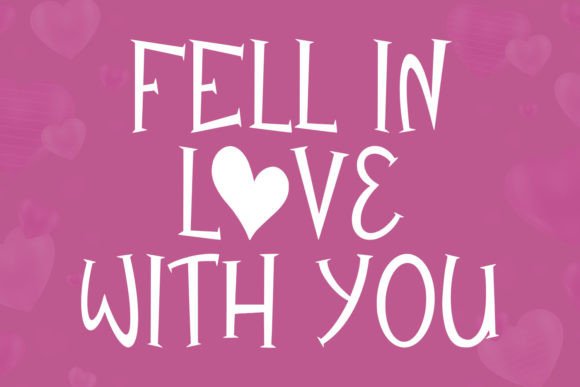
Introducing Julovey Font: The Ultimate Expression of Love and Elegance
In the world of typography, fonts play a crucial role in conveying emotions and setting the tone for various designs. Among the numerous fonts available, Julovey Font stands out as a stylish and romantic typeface that brings love to life in every letter. With its touch of sophistication, Julovey Serif Love Display Font adds a special flair to your designs, making it perfect for expressing emotions with elegance.
The Essence of Julovey Font
Julovey Serif Love Display Font is a beautifully crafted typeface that combines classic charm with a modern twist. Its elegant design makes it an ideal choice for projects that require a dash of romance, such as wedding invitations, love notes, and other designs that aim to evoke emotions. The font’s versatility allows it to be used in various contexts, from digital platforms to print materials.
Key Features of Julovey Font
- Romantic and Elegant Design: Julovey Serif Love Display Font boasts a sophisticated design that exudes love and elegance. Its intricate details and refined lines make it perfect for designs that require a touch of romance.
- Versatility: This font is versatile and can be used in various design projects, including wedding invitations, love notes, posters, and digital content.
- Classic Charm with a Modern Twist: Julovey Serif effortlessly combines classic charm with a modern twist, making it suitable for both traditional and contemporary designs.
- Easy to Read: Despite its elegant design, Julovey Serif Love Display Font remains easy to read, ensuring that your message is conveyed clearly and effectively.
Use Cases for Julovey Font
Julovey Serif Love Display Font is perfect for a wide range of design projects, including:
- Wedding Invitations: Add a touch of romance and elegance to your wedding invitations with Julovey Serif Love Display Font.
- Love Notes: Express your emotions with love notes that feature this beautiful and elegant font.
- Digital Content: Use Julovey Serif Love Display Font to create engaging and romantic digital content, such as social media posts and blog articles.
- Posters and Flyers: Create eye-catching posters and flyers that showcase your message in a stylish and elegant manner.
Tips for Using Julovey Font
To get the most out of Julovey Serif Love Display Font, consider the following tips:
- Pair with Complementary Fonts: Pair Julovey Serif Love Display Font with complementary fonts to create a harmonious and visually appealing design.
- Use in Moderation: Use Julovey Serif Love Display Font in moderation to avoid overwhelming your design. It’s perfect for headings and titles, but you may want to use a simpler font for body text.
- Experiment with Colors: Julovey Serif Love Display Font looks great in a variety of colors. Experiment with different colors to find the one that best suits your design.
The Benefits of Using Julovey Font
Using Julovey Serif Love Display Font offers several benefits, including:
- Unique and Memorable Designs: Julovey Serif Love Display Font helps you create unique and memorable designs that stand out from the crowd.
- Emotional Connection: This font helps you establish an emotional connection with your audience, making your design more relatable and engaging.
- Professionalism: Julovey Serif Love Display Font adds a touch of professionalism to your design, making it perfect for businesses and individuals who want to make a lasting impression.
Julovey Serif Love Display Font is a stylish and romantic typeface that brings love to life in every letter. With its touch of sophistication, it adds a special flair to your designs, making it perfect for expressing emotions with elegance. Whether you’re working on wedding invitations, love notes, or any project that needs a dash of romance, Julovey Serif effortlessly combines classic charm with a modern twist. Embrace the power of love in your typography with this beautiful and versatile display font.
FAQs About Julovey Font
- What is Julovey Serif Love Display Font?: Julovey Serif Love Display Font is a stylish and romantic typeface designed to bring love to life in every letter.
- What is Julovey Font used for?: Julovey Serif Love Display Font is perfect for wedding invitations, love notes, digital content, posters, and any design project that requires a touch of romance.
- Is Julovey Font easy to read?: Yes, despite its elegant design, Julovey Serif Love Display Font remains easy to read, ensuring that your message is conveyed clearly and effectively.